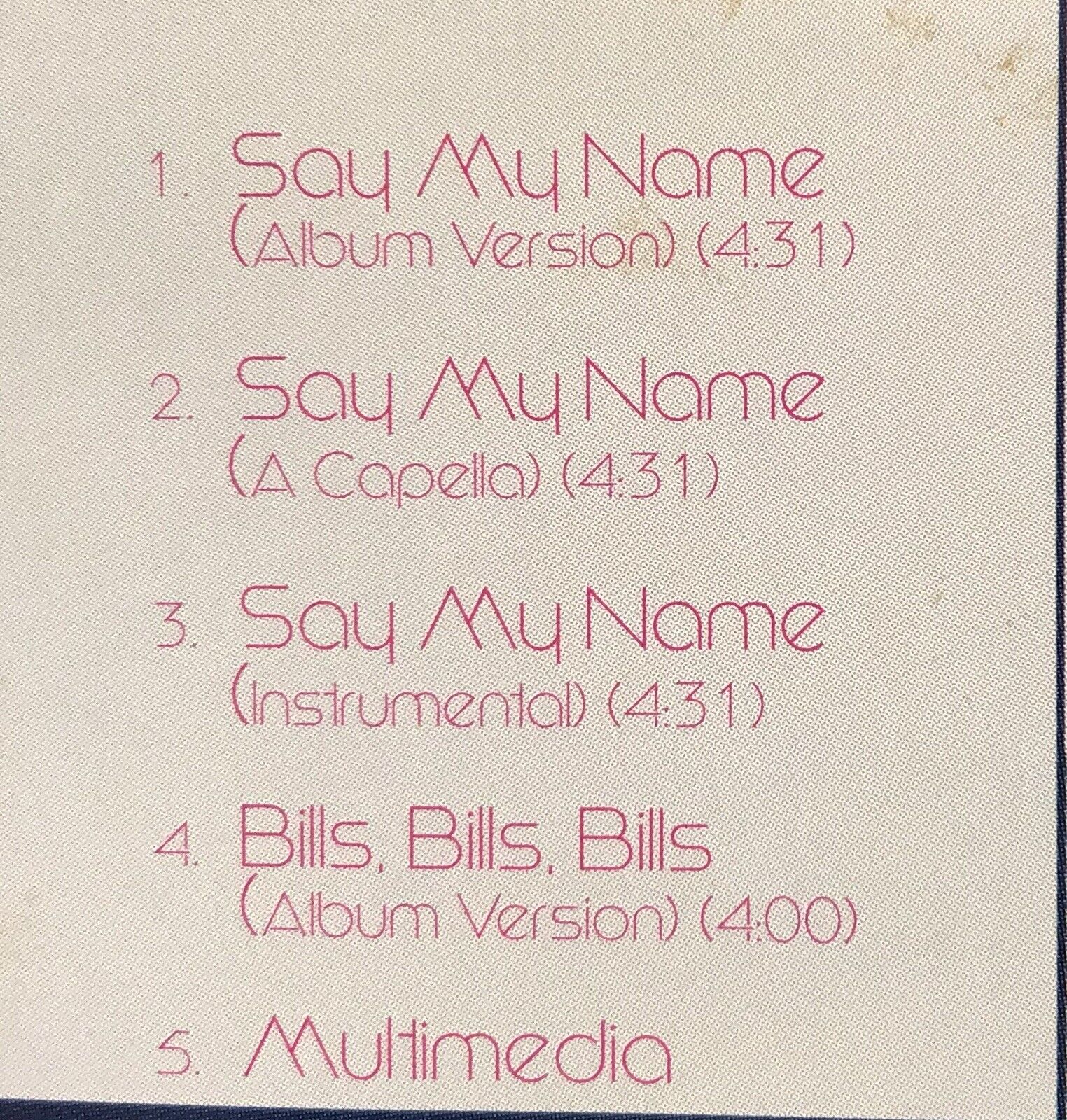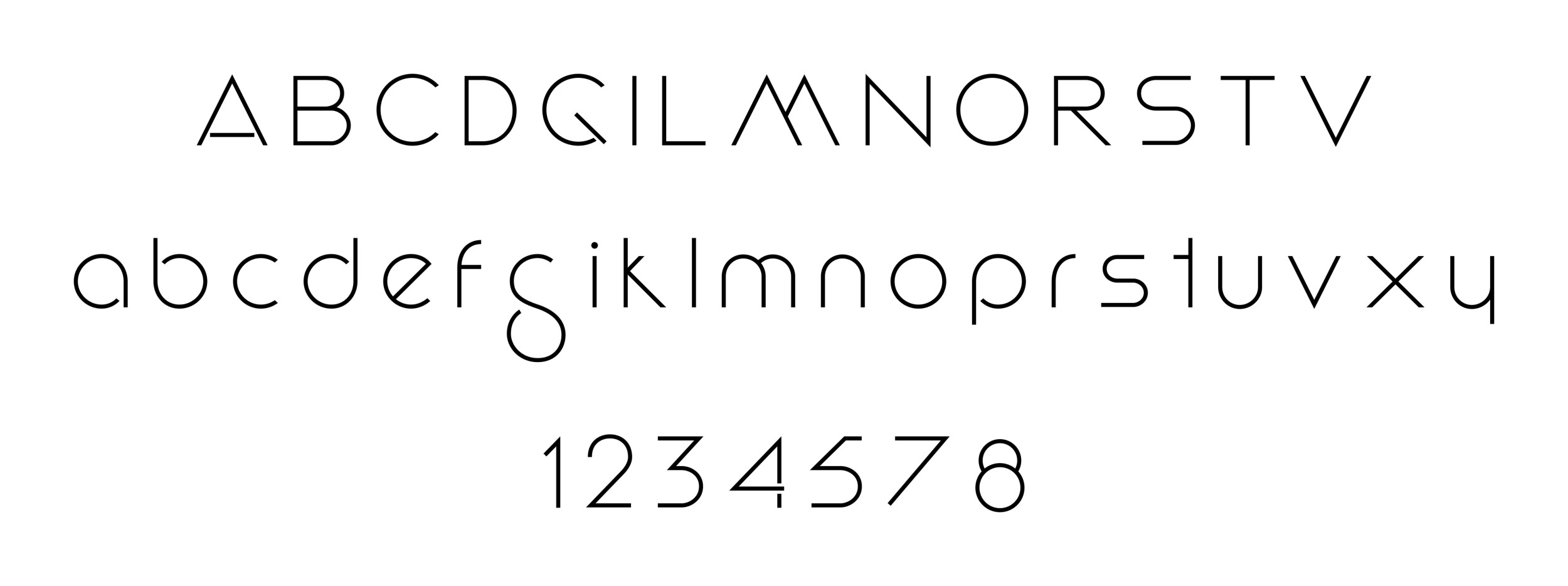
This font was used on certain formats and editions of the single "Say My Name" by Destiny's Child, which was released in 1999. The uppercase G and M, as well as the lowercase g are particularly unique.
The first image is a scan of one version of the track list, whereas the second image is my approximation of all the characters I have seen so far.
I hope that this is indeed a font and not custom type, but I have never seen it used anywhere else other than on the cover of this single.
Frans, may I ask how you composed the sample alphabet?
Sure, no problem! I imported a few scans of the single covers into Inkscape to create a vector using bezier curves and lines. No automatic tracing. I hope it doesn't look awful.
This is Dana Line, designed by Doug Olena of Keystrokes. My understanding is that his fonts are now available on request.
Consider submitting images of the single to Fonts In Use, if you can spare a minute.
That's it! Thank you so, so much! I have e-mailed Doug Olena about Dana Line.
I'll do my best to get a decent scan of the Say My Name single for the Fonts In Use website (which is, I might add, a fantastic resource).